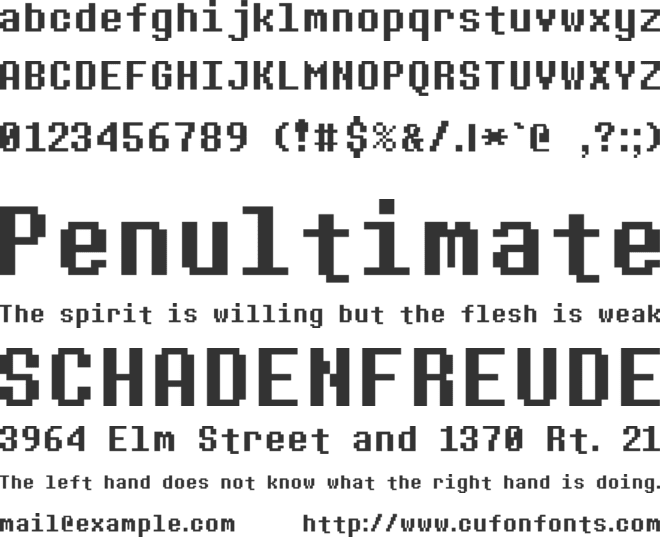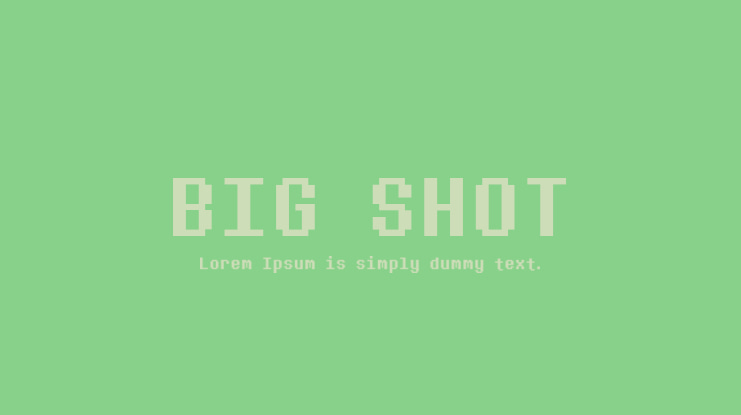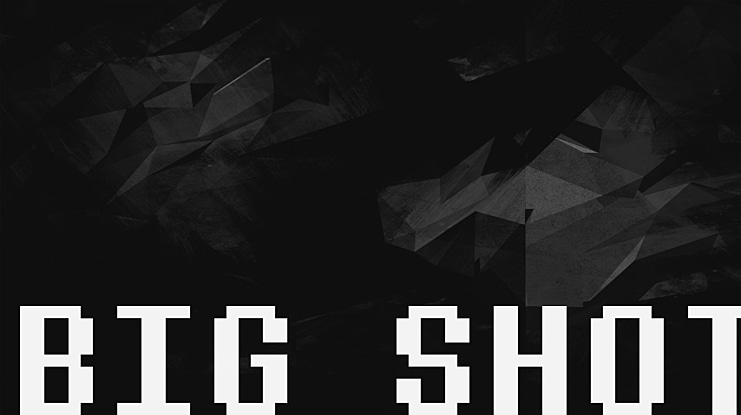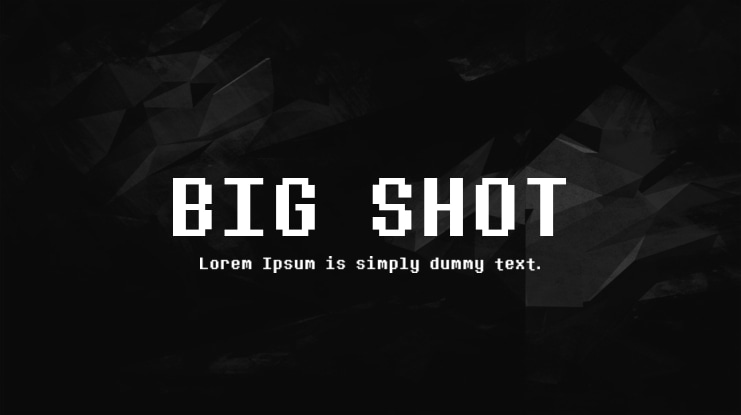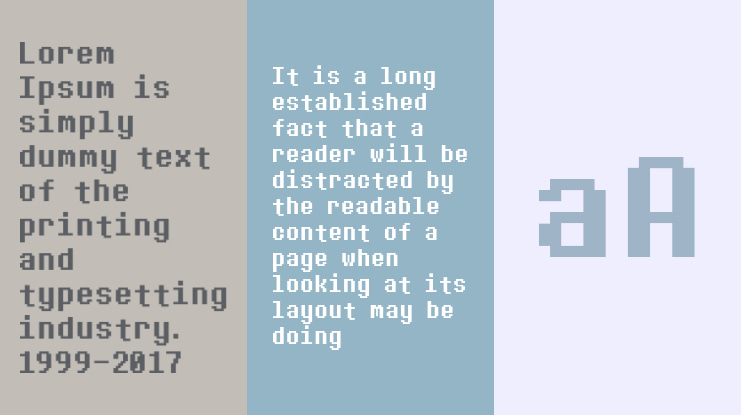
BIG SHOT Font
YOU EVER WANT TO BE A [BIG SHOT], KID?
Lots of folks have done Deltarune fonts based on the title screen, but I hadn't seen any based on the in-game dialog. This was the first time I made a font that wasn't handwriting and was the result of an accumulative ten hours work. It's not perfect; there were some things that wouldn't translate. But it's about 99% accurate.